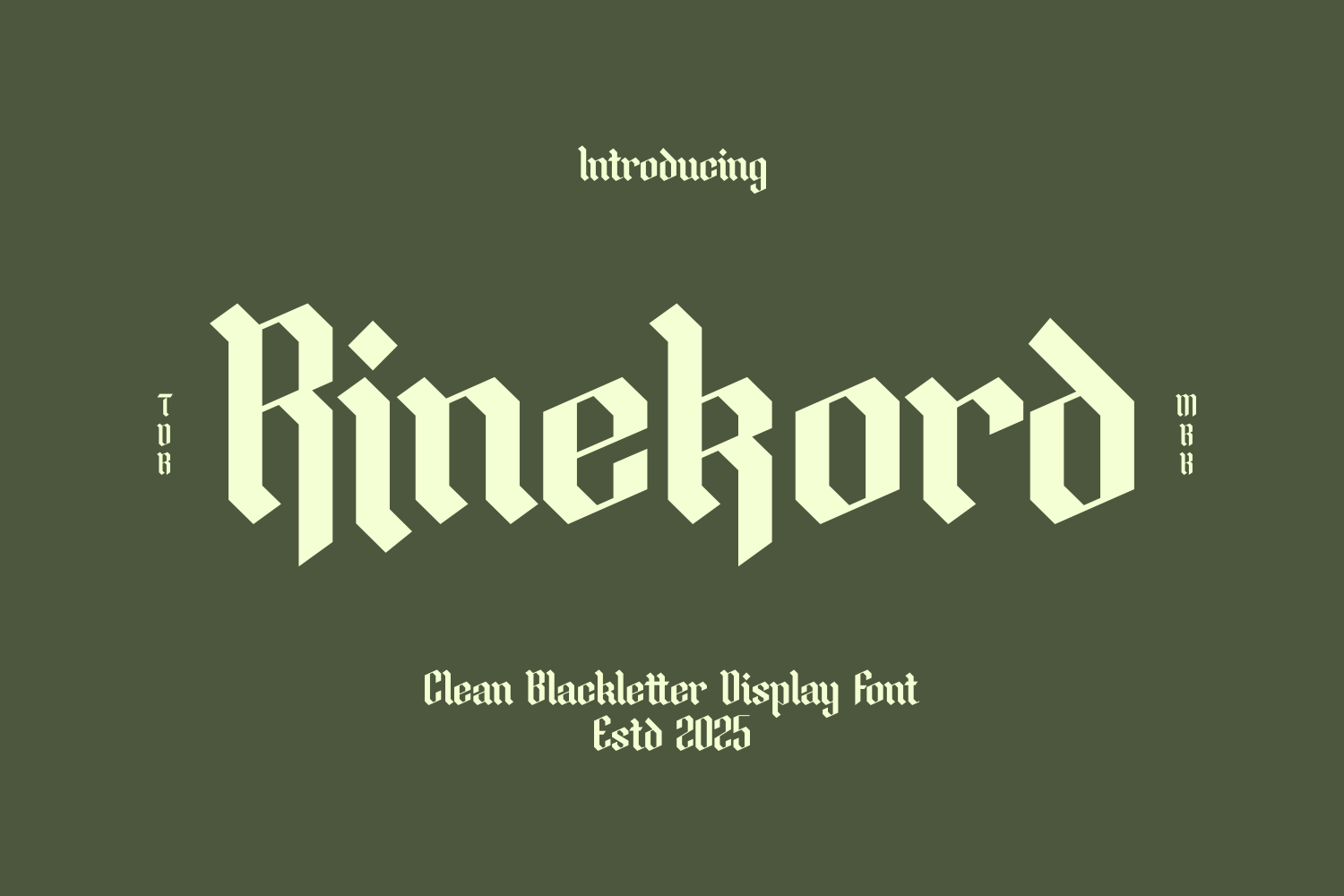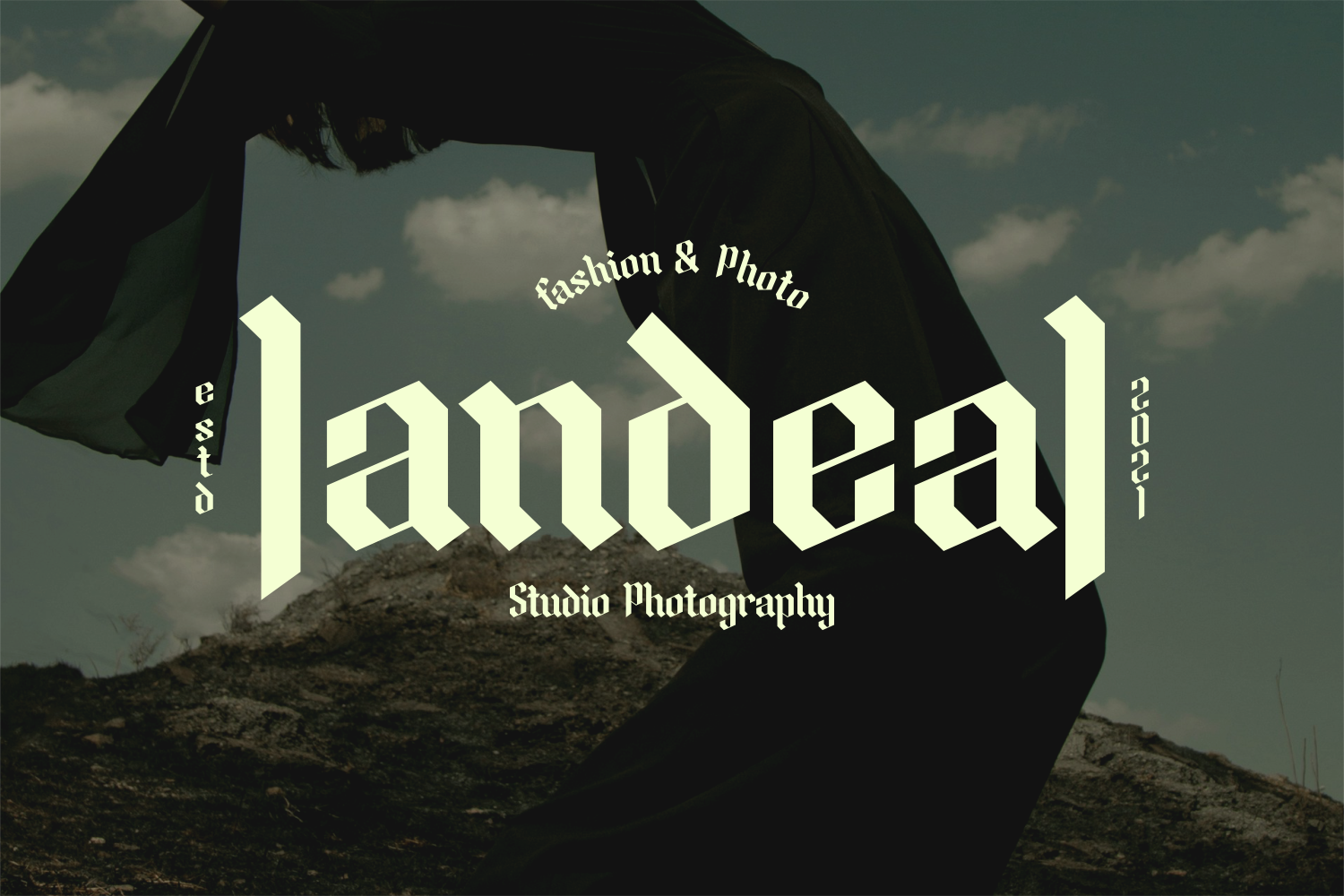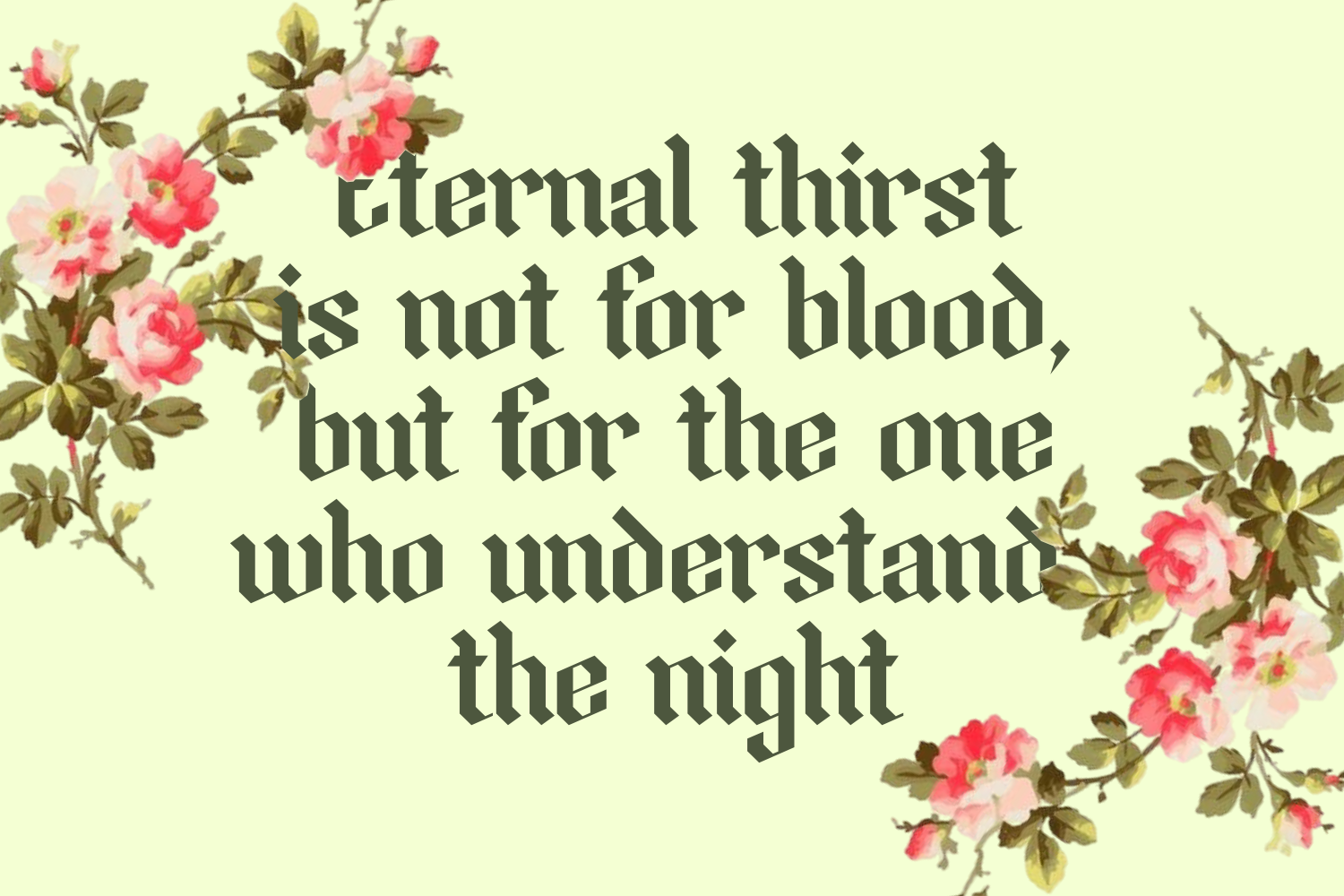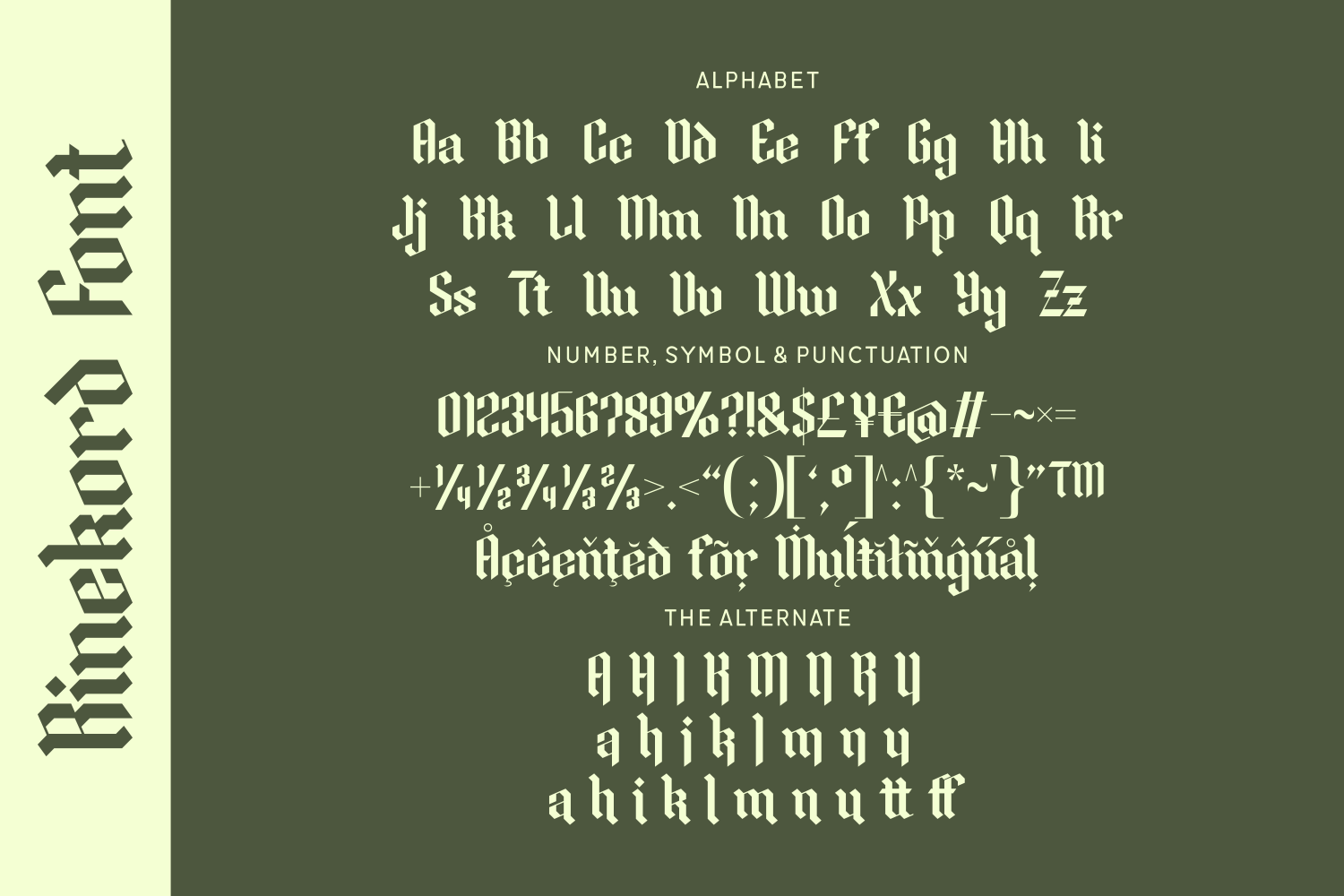
Rinekord is a clean and minimalist blackletter font blending traditional gothic structure with modern simplicity. Great for branding, editorial titles, and fashion-forward designs seeking medieval charm.